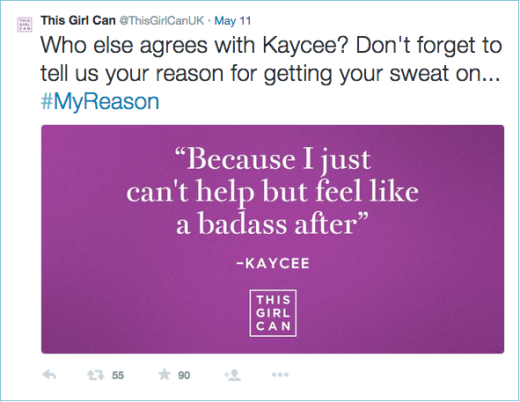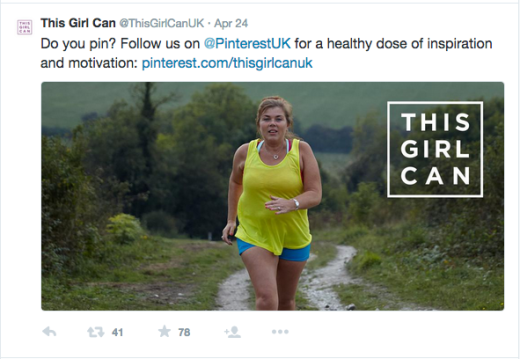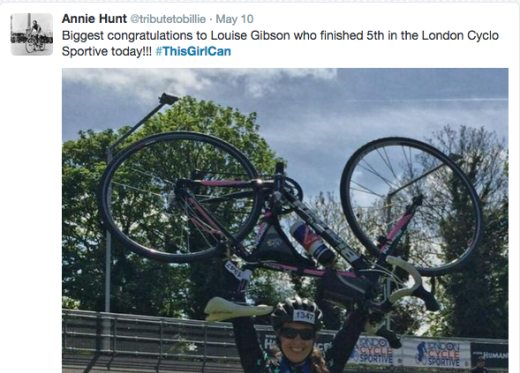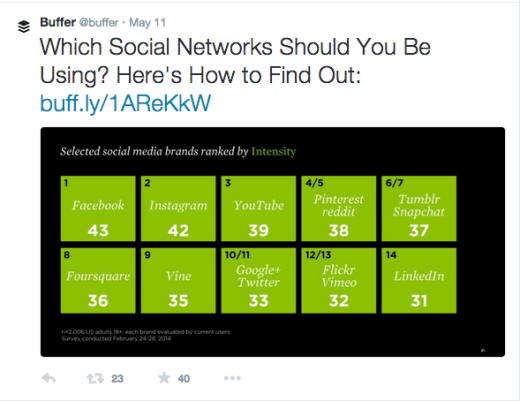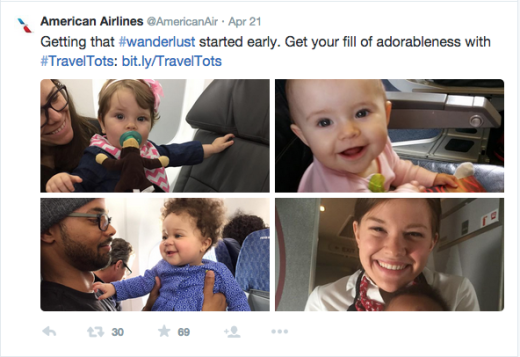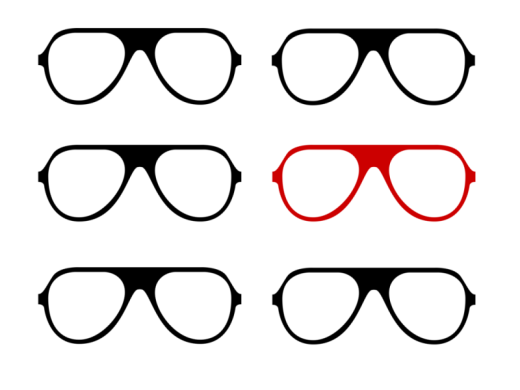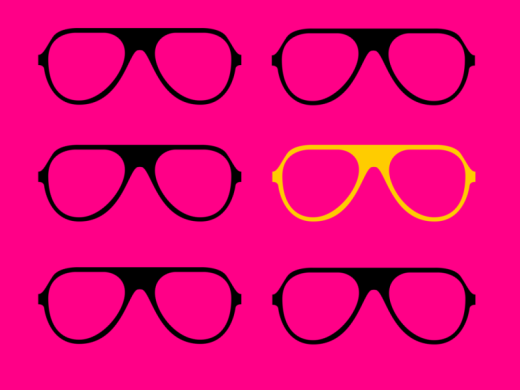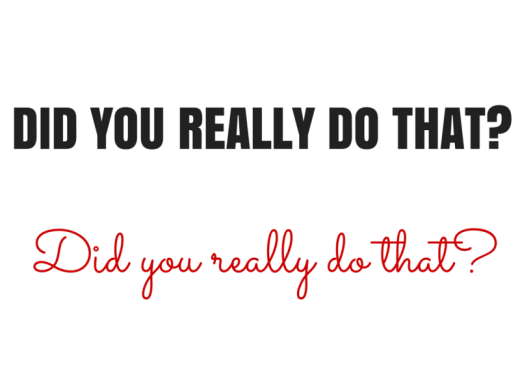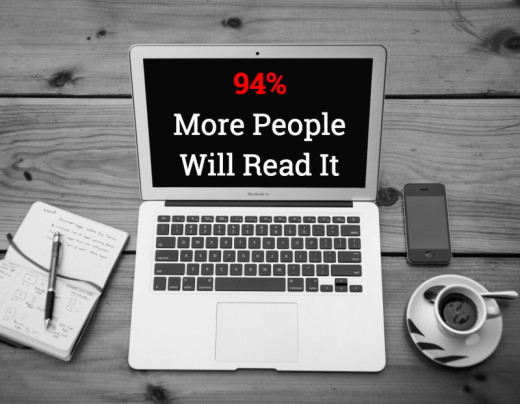
If you’ve been looking to supercharge your social media strategy, you probably know a lot about the benefits of using images.
But, how much do you know about actually creating scientifically shareable images?
Turns out, there’s tons of actionable, research-backed advice on how to create social media images that get shared—the ideal colors, fonts, text, and more, all leveraging what we know about design, psychology and the Internet to get more shares and engagement.
By the end of this article you’re going to be fully aware of how to make images that your readers can’t help but share. All backed by science.
What Makes A Shareable Social Media Image?
A shareable social media image is made up of five components:
1. Emotion: When your readers feel it, they’ll share it.
2. Relevance: Your image should not only fit your niche, but fit your audience too.
3. Colors: Using the right colors, to get maximum shares.
4. Typography: Choosing a font that not only looks good, but also says what you’re trying to say.
5. Hashtags and Text: Using the right words, phrases and hashtags that will make your audience interact.
In this article you’re going to learn how you can take advantage of all of these elements, and put them together to create the best social images you possibly can.
1. Emotion
Create Epic Content (Or Nobody Will Share It)
Before I carry on, there’s one thing I do need to mention:
You need to treat your images as content.
And not just any sort of content. I mean the epic kind, that’s going to add a ton of value to your reader’s life. Because that’s the only content people share, right?
If you’re creating images because you feel you need to – and just scatter them throughout your news feed – you’re not going to get anywhere.
Your images should:
•    Back up points you’ve made
•    Show statistics
•    Provide tweetable (or valuable) quotes
•    Add depth
•    Go above and beyond the content you’ve written
So, be sure that the images you use – or make – aren’t just there for the sake of it. Treat them as content and put a high value on what goes on them.
What Makes An Image Emotional (And Shareable)?
Emotion is the biggest piece of the sharing puzzle. And it’s the driving force behind all five points on this list – so it deserves a lot of attention. So, what makes an image emotional?
As it turns out, there are a lot of factors:
• Color: Studies of abstract art have shown that the way color is used and distributed across a piece controls the emotions you feel. For example, black creates feelings at the despair end of the spectrum and bright primary colors can create joy and happiness.
• Font Choice: You’ll learn about this in depth in section four.
• Complexity: This isn’t about complex designs – more on that next – but emotional complexity. Research shows that the more feelings your images can convey,the more viral it will go.
• Showing one of these five things: Research from Harvard studied what makes marketing campaigns, and their images, go viral. They found that: Admiration, Interest, Serenity, Amazement and Astonishment were the most shared emotions.
Simple Designs, Big Emotions
You don’t have to be a graphic designer to create solid social media images. In fact, far from it. I’ve run twitter feeds for months without a single minute of design under my belt.
All it takes is a little knowledge of how design works, and what it takes to make something your audience wants to share.
Firstly, there isn’t a magic bullet of design that goes viral. At least not to the current research. But there is a principle of design that, when harnessed, can go a really long way.
Simplicity.
The psychology of design shows that people are most responsive – and more likely to engage – with images or logos that are laid out in a clean and simple way. That’s because if people are presented with too much information, it can be overwhelming and force them to switch off.
For example, this study on smoking warnings showed that when smokers were presented with too much graphic or negative information, they were actually more likely to smoke because they paid less attention to the images.
Basically, simple designs cut through the noise and make your message easier to digest.
Which of these two images is easier for you to process, and has the biggest impact?
This one:
Or this one:
The second one right? It’s a no brainer. Clear and crisp cuts it. Two colors, one font – that’s it.
There’s no arguing with the message either. It goes right through the noise, and into the hearts (and minds) of your reader.
If you look at most articles on highly shareable images – like this one from Jeff Bullas – all the ‘types’ of image have this simplicity in common too.
You don’t need to go too far to see it in action either. All it takes is a quick glance at the Buffer twitter feed to see simple, clear and crisp layouts getting a lot of shares:
1. Open an image creation app (if you want speed, I’d recommend Share As Image)
2. Choose a template that fits the platform you use most
3. Create an image, using the principles above, for your next update